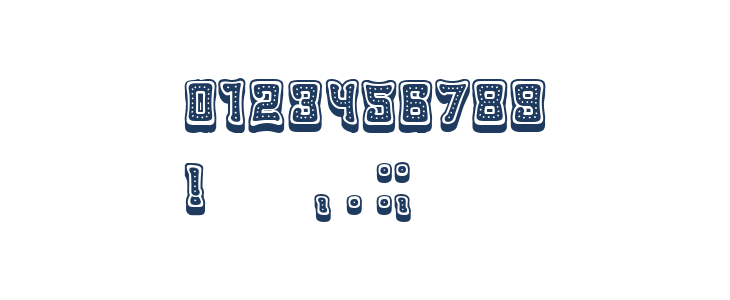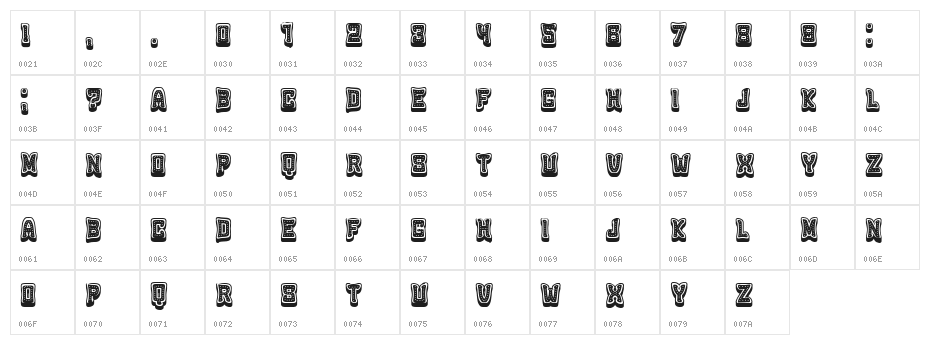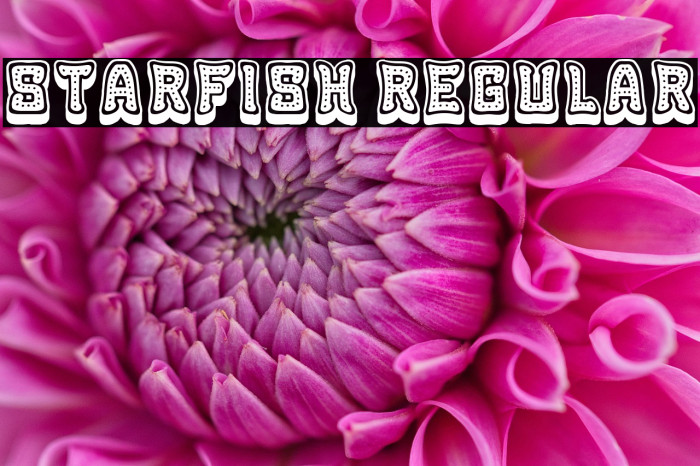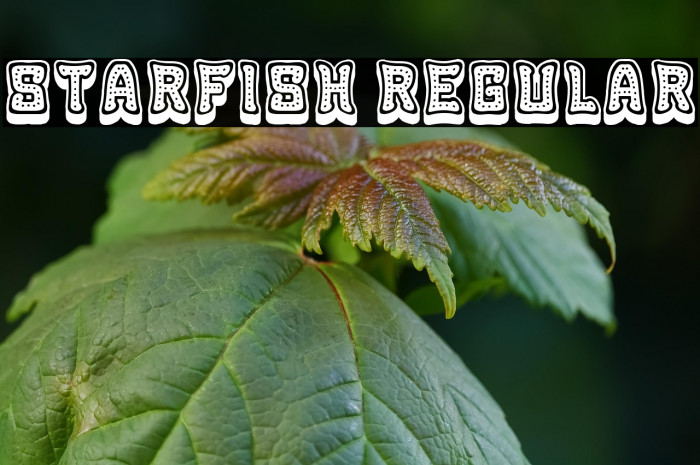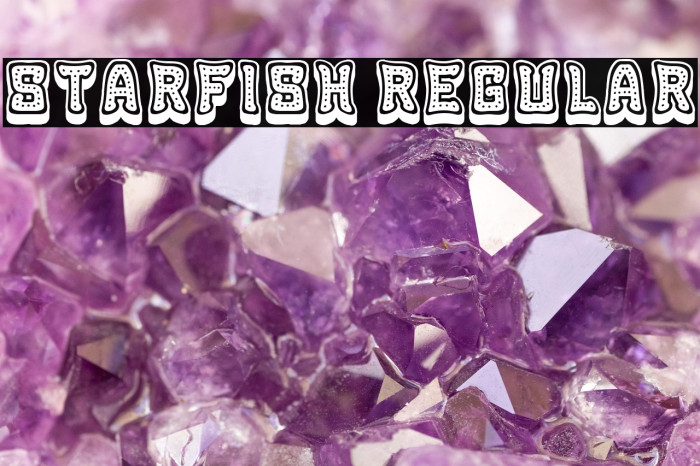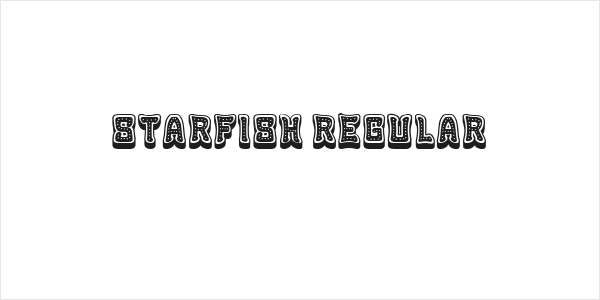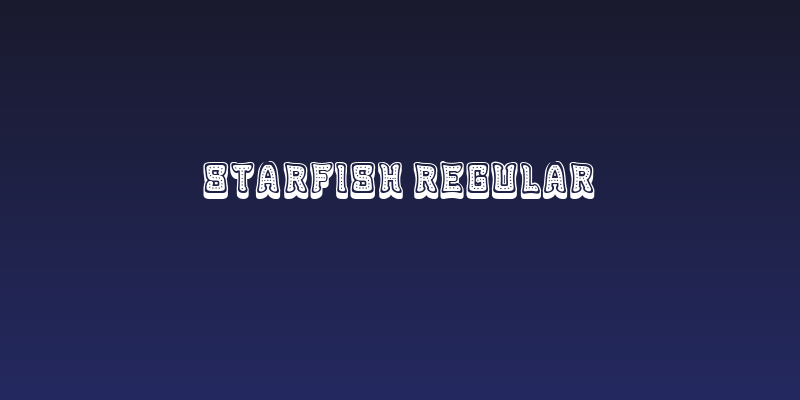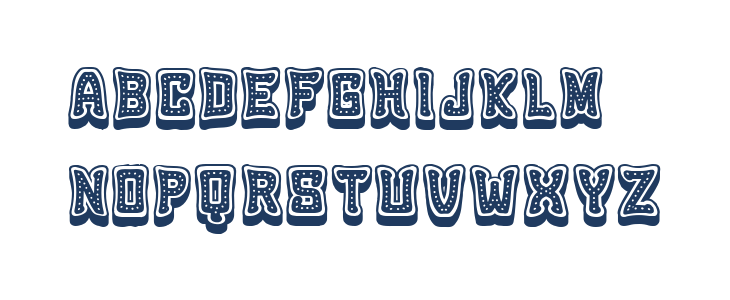
Starfish Regular Font
Starfish Regular Description
This playful and whimsical font features bold, rounded characters with a unique dotted pattern inside each letter. The thick outlines and bubbly shapes give it a fun, cartoonish appearance, making it stand out in any design. The font maintains a consistent style across uppercase, lowercase, and numeral characters, with special symbols also reflecting the same decorative theme. Its distinctive look is perfect for projects that require a touch of creativity and flair.